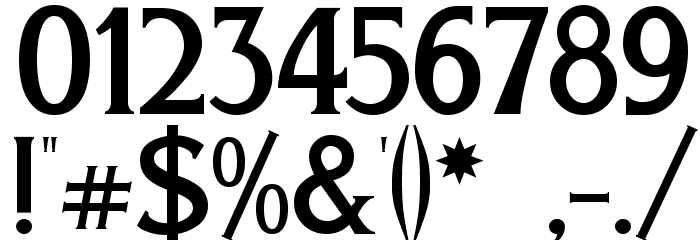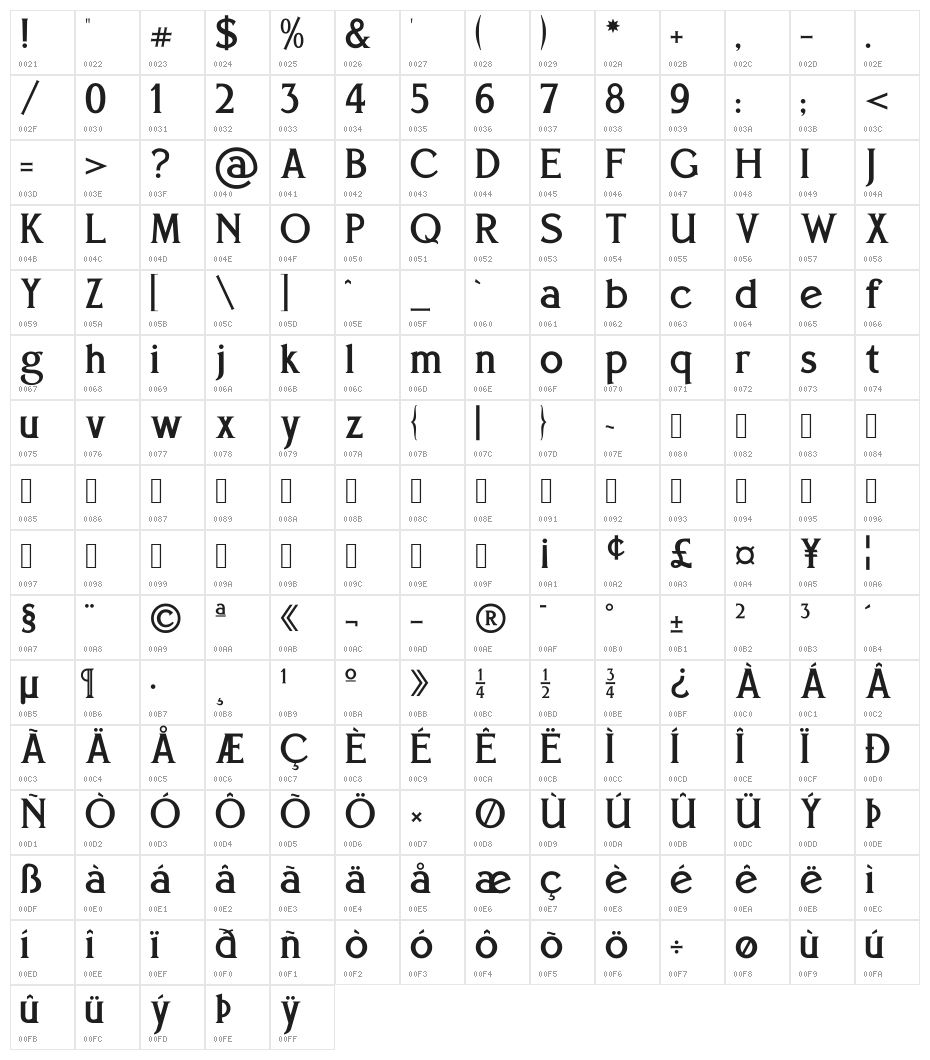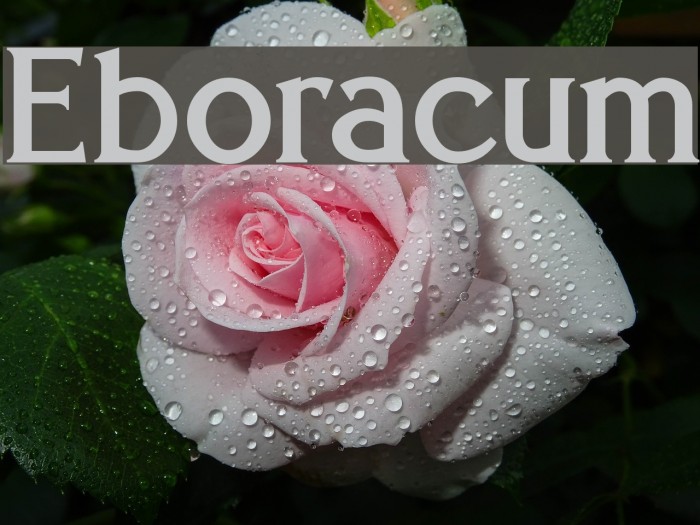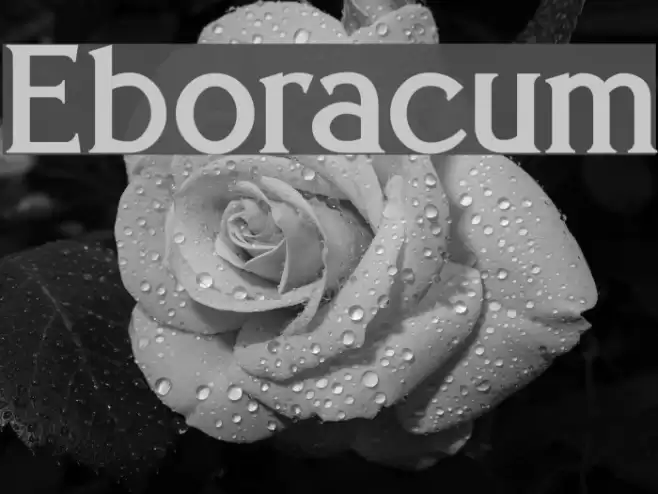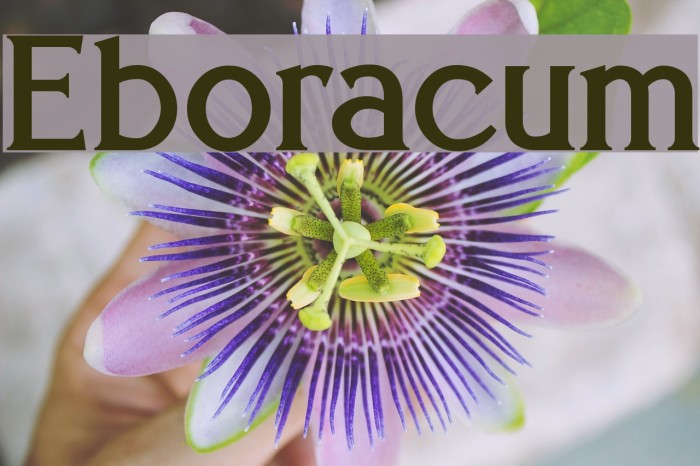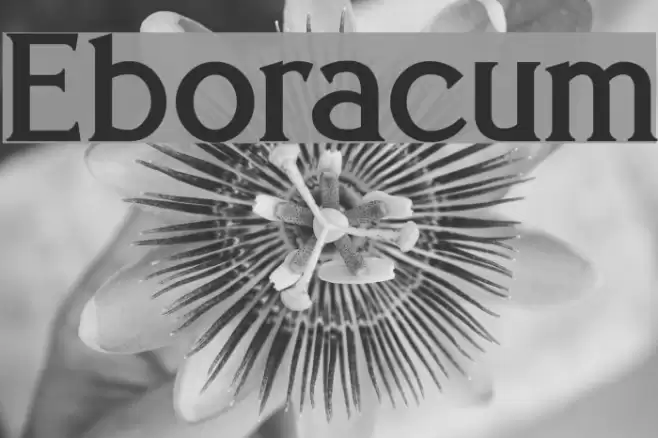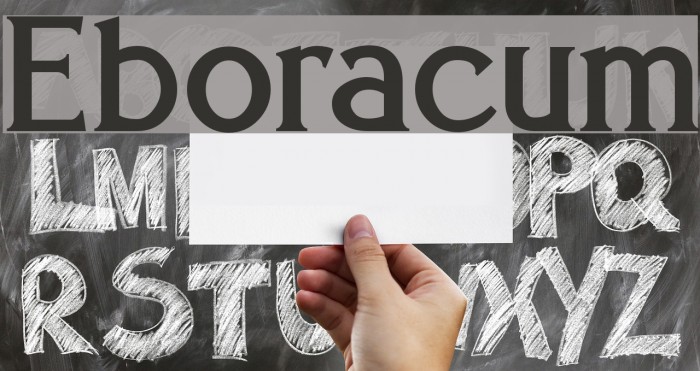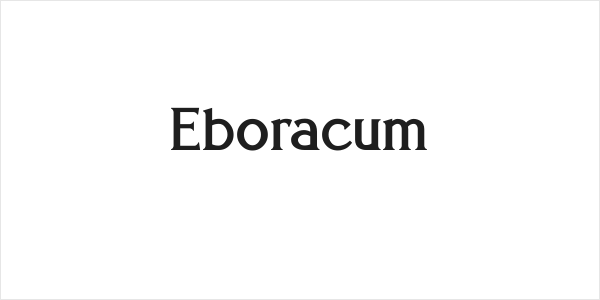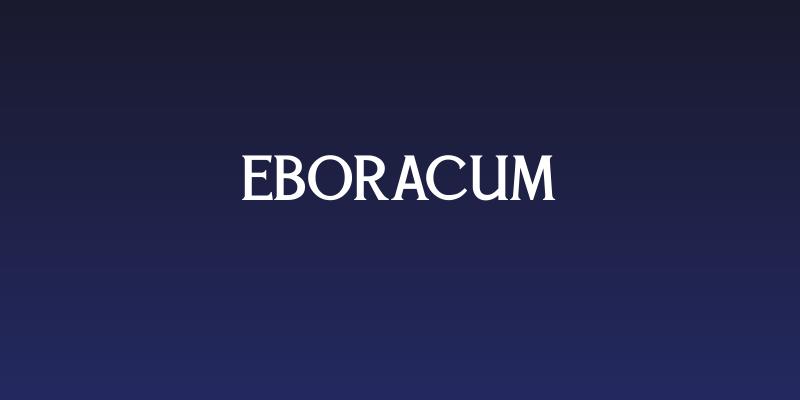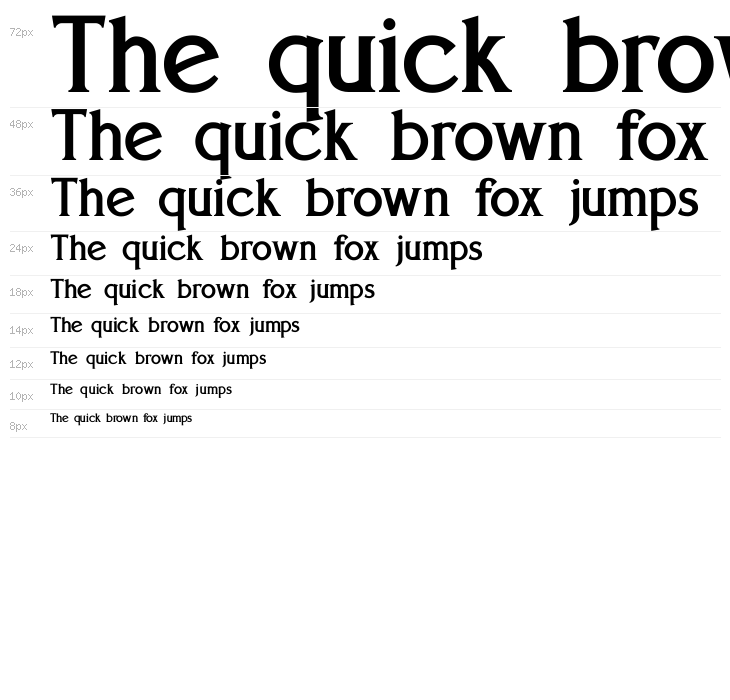
Eboracum Font
Eboracum Description
This font exhibits a classic serif style with elegant and slightly curved serifs that add a touch of sophistication. The uppercase letters are bold and commanding, while the lowercase letters maintain a balanced and readable form. The numerals are clear and distinct, making them suitable for both display and text purposes. Special characters are well-designed, maintaining the overall aesthetic of the font. The strokes are consistent, with medium contrast that enhances readability without sacrificing style.
| Proposed Projects | Ideal for editorial design, book covers, formal invitations, and branding projects that require a touch of elegance. |